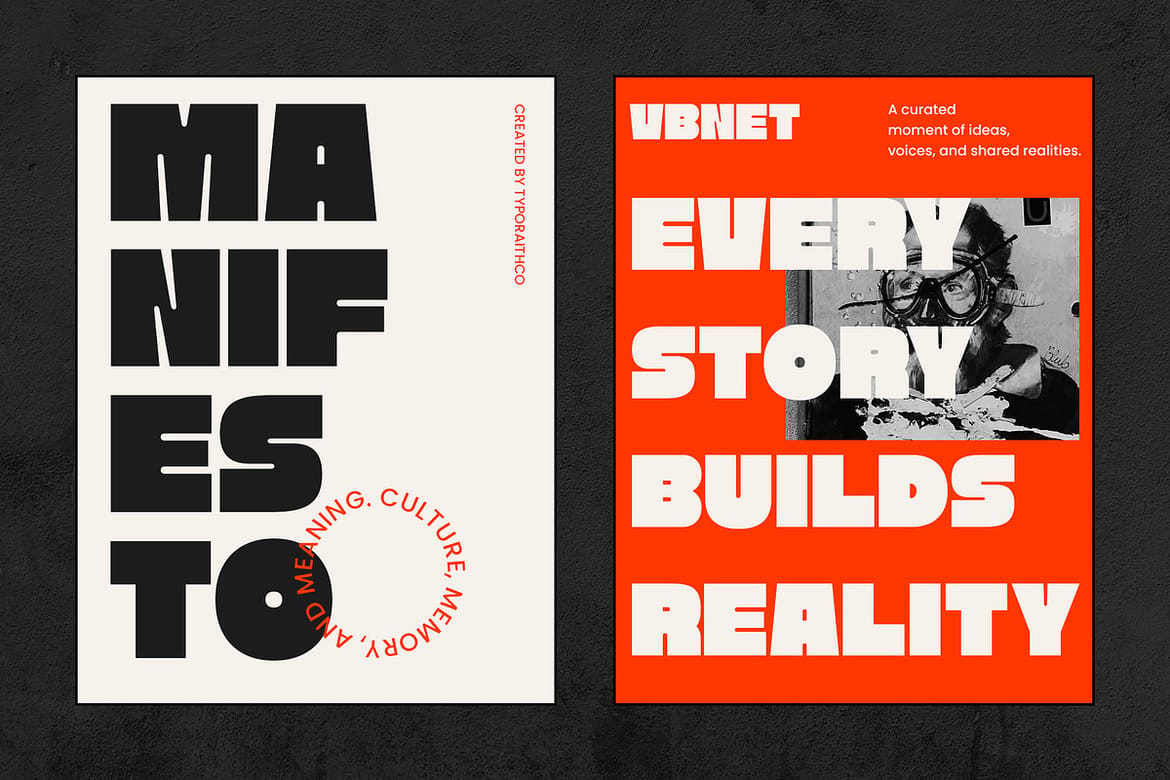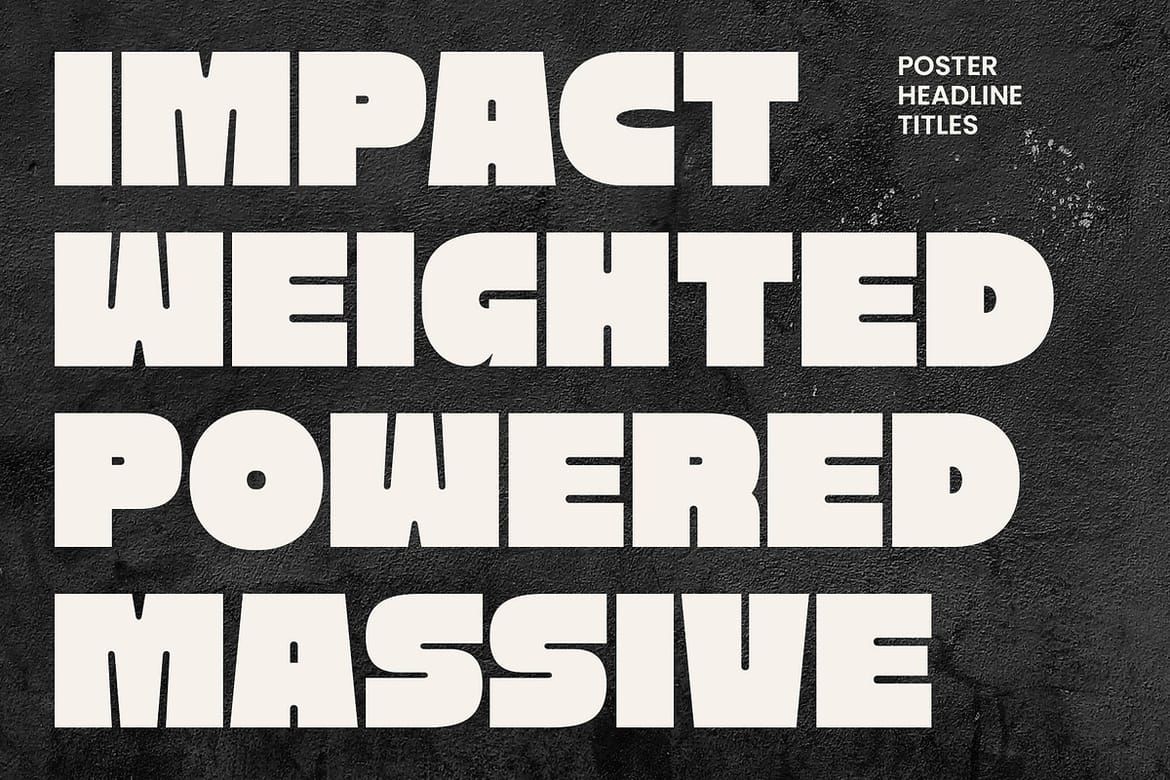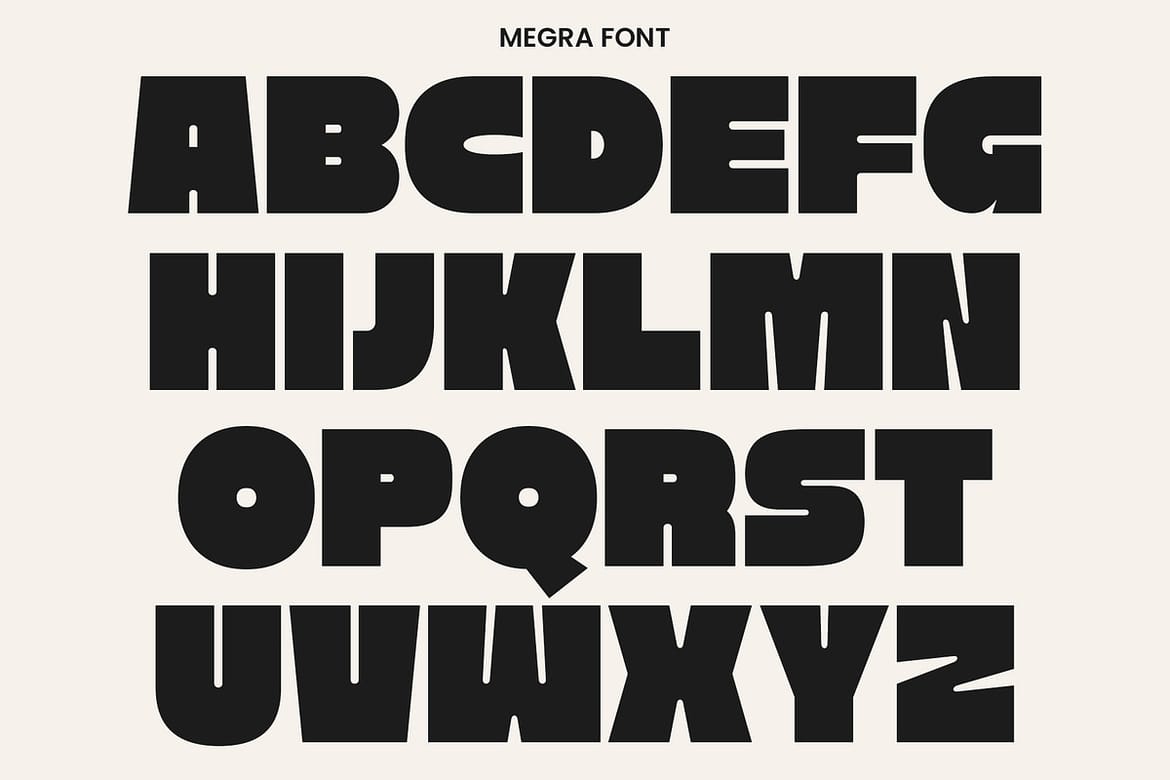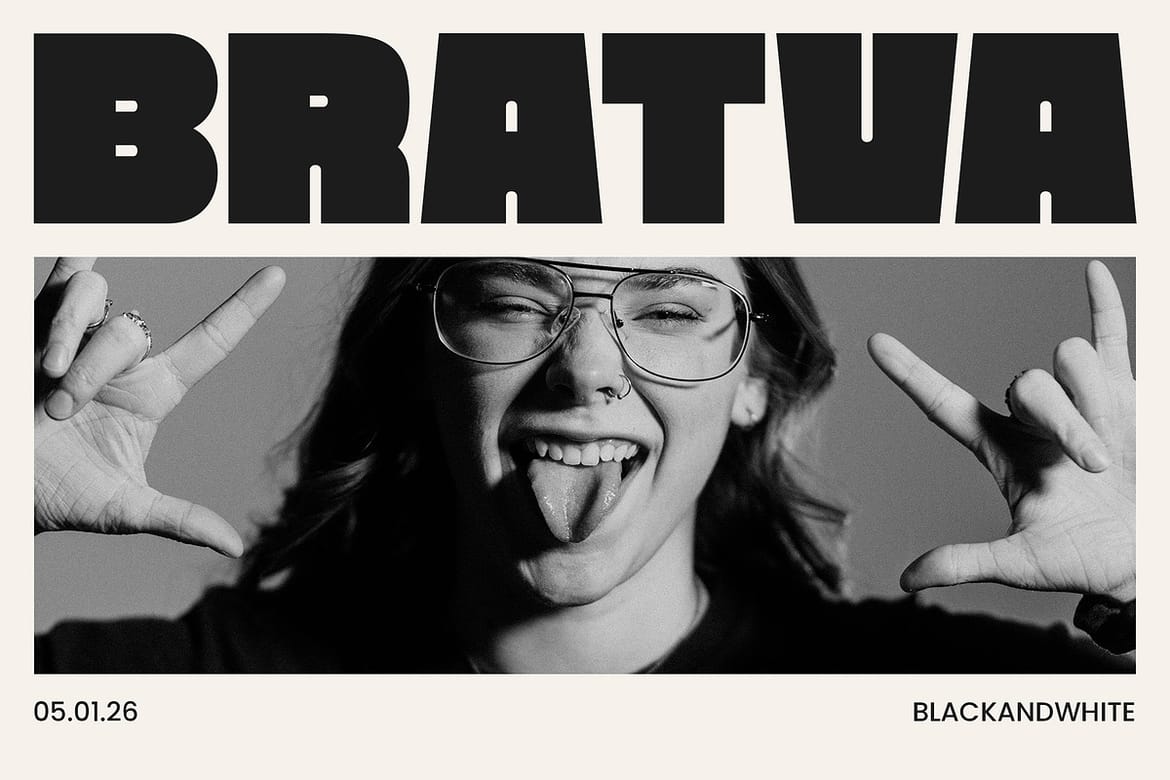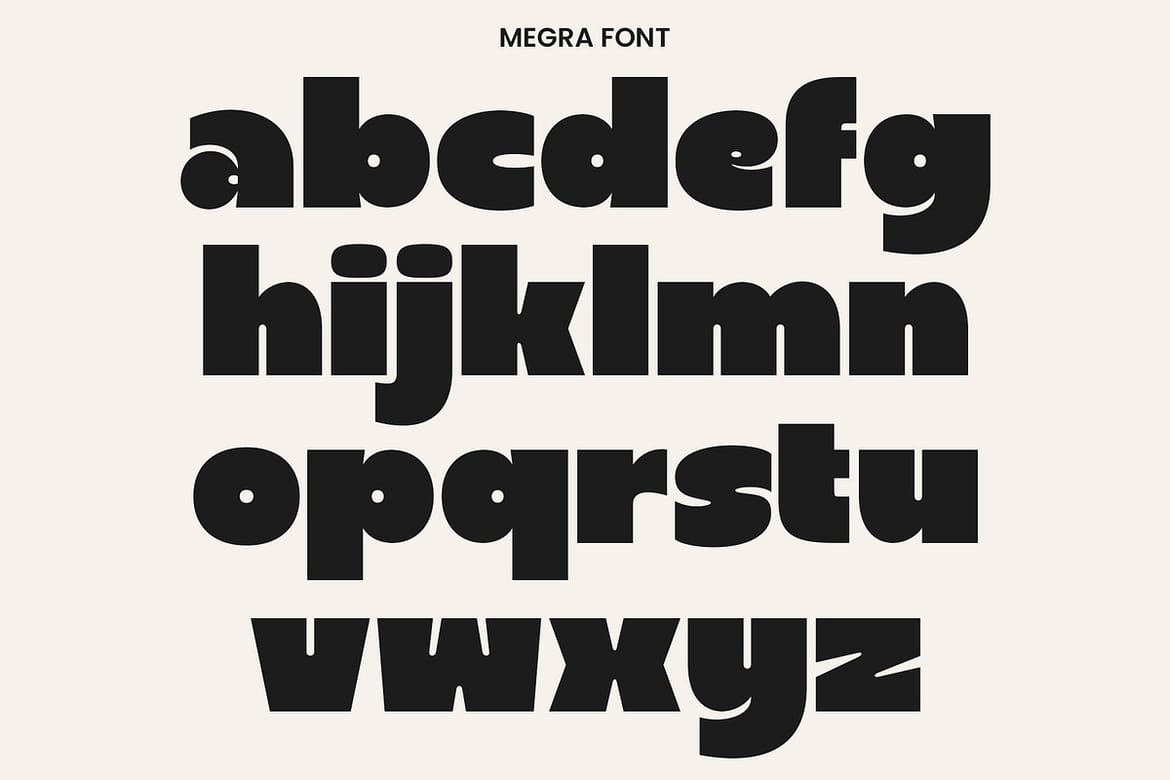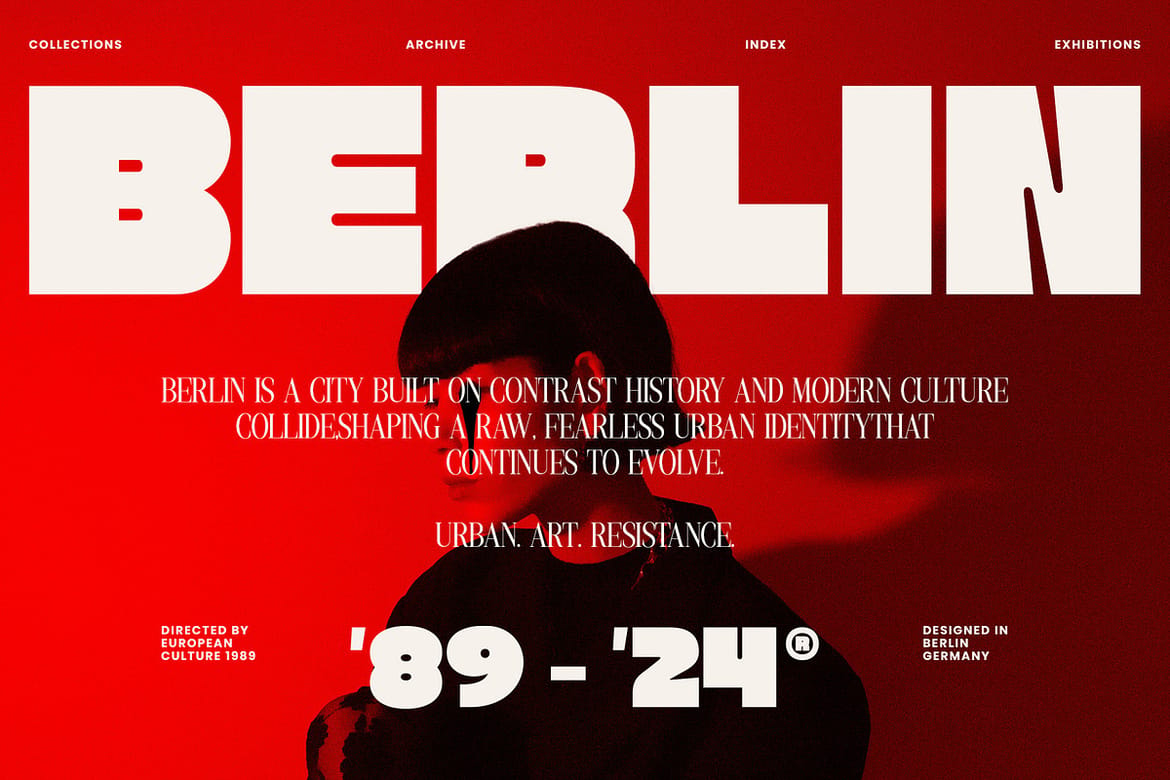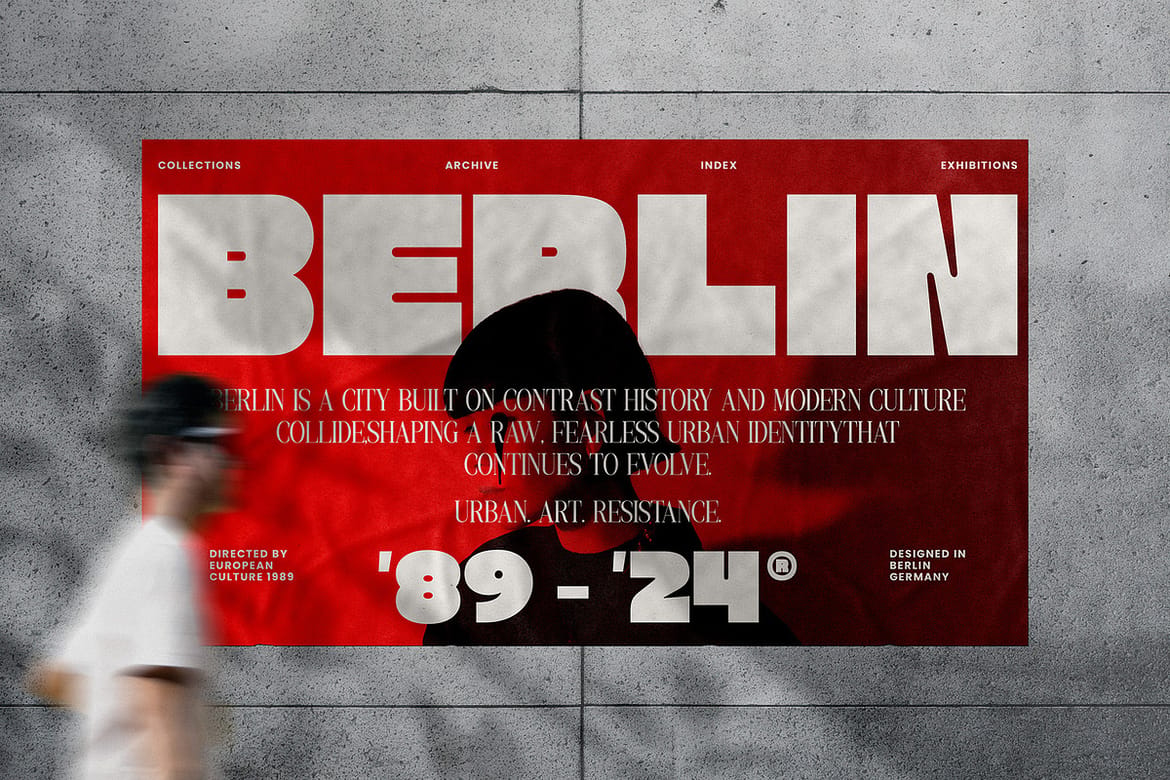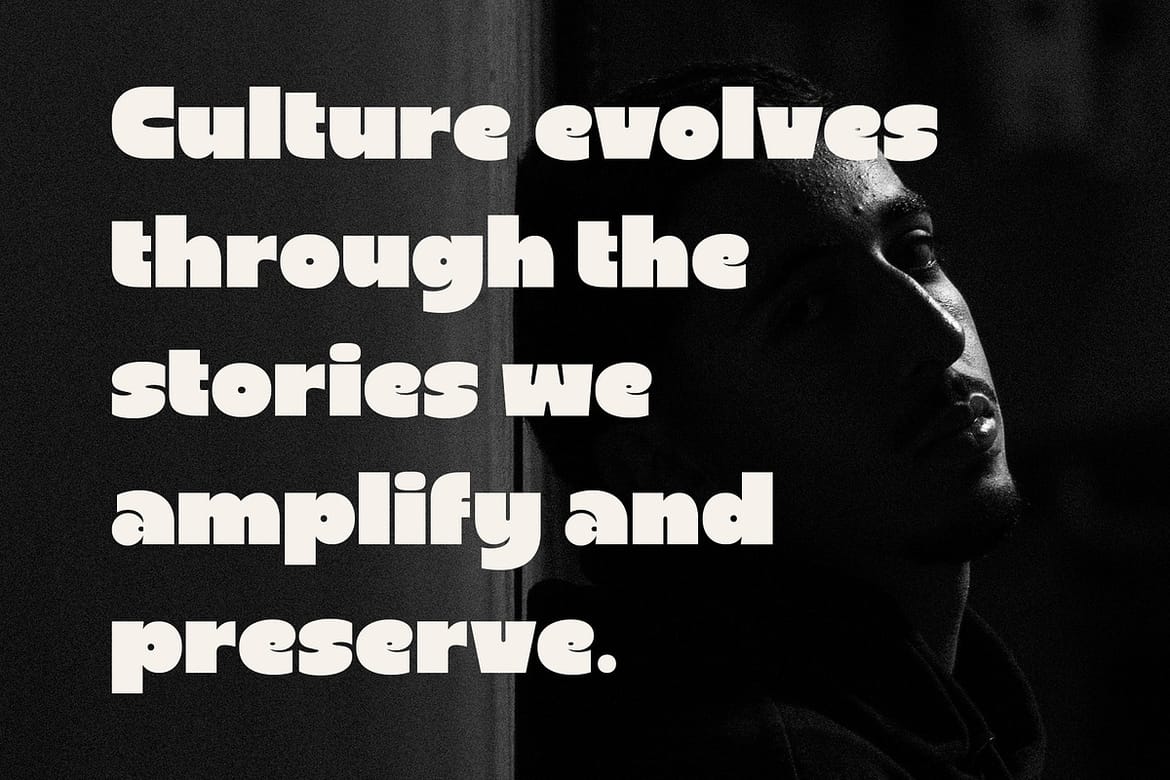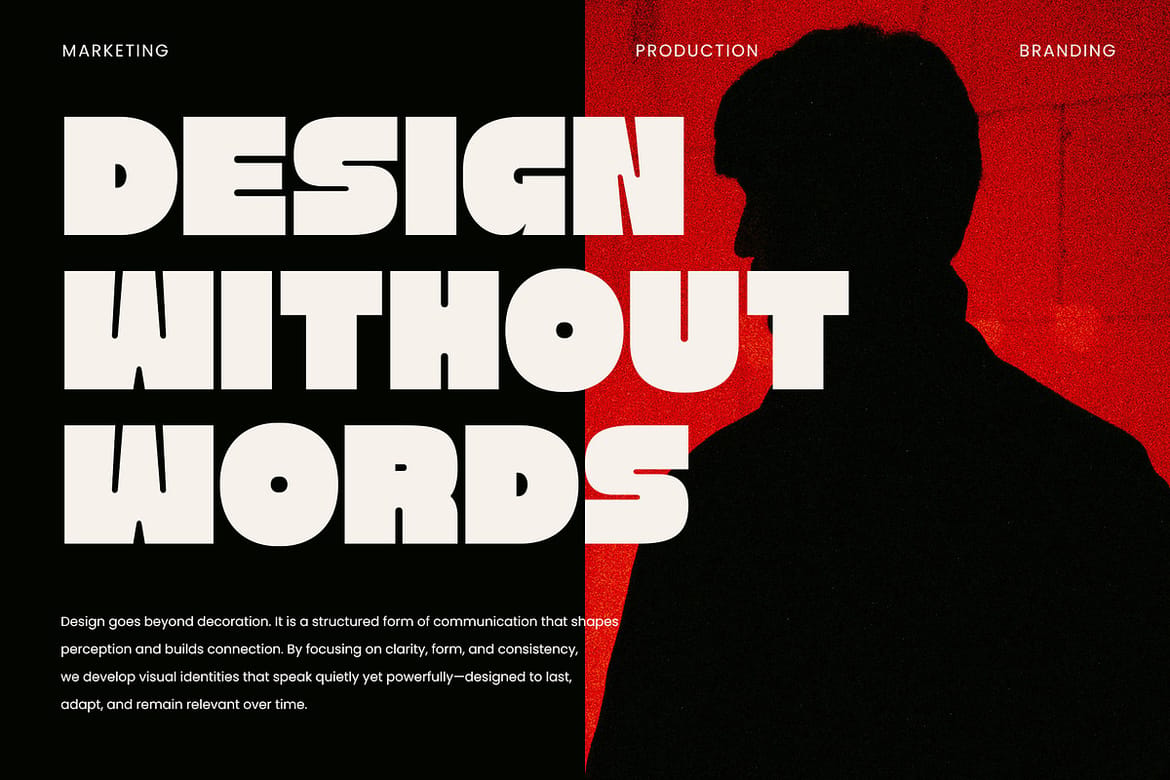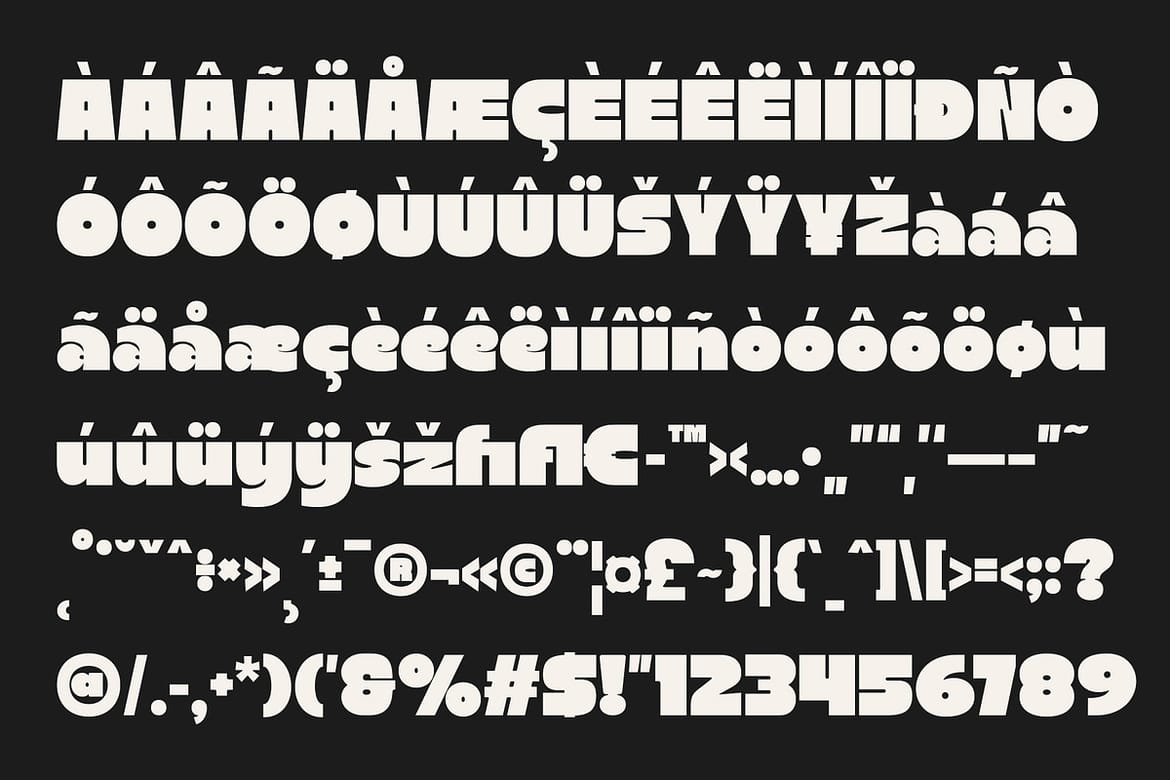
Megra Bold is a modern heavy sans serif font designed to make a strong visual impact. With bold proportions and clean geometric forms, this typeface is perfect for designers who need a powerful and confident look.
Ideal for branding, posters, headlines, logos, editorial layouts, and social media designs, Megra Bold delivers clarity, strength, and modern character in every composition.
Whether you're working on a bold identity system or an eye-catching display layout, Megra Bold helps your design stand out effortlessly.
Features:
Modern heavy sans serif style
Bold & strong character
Clean and contemporary look
Easy to read at large sizes
Perfect for display and headline use
- Modern heavy sans serif bold font
- Bold proportions, clean geometric forms
- Ideal for headlines, logos & posters